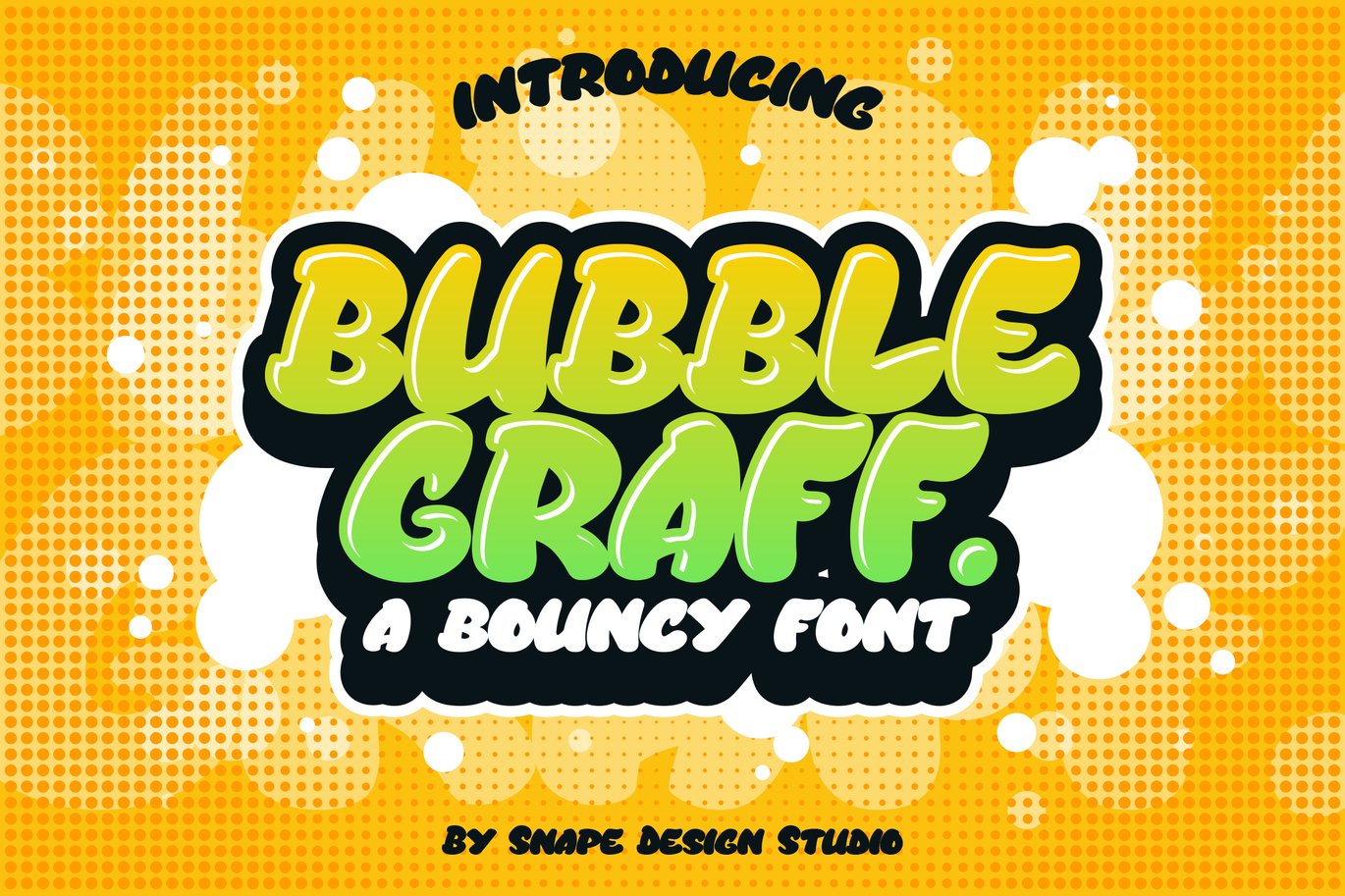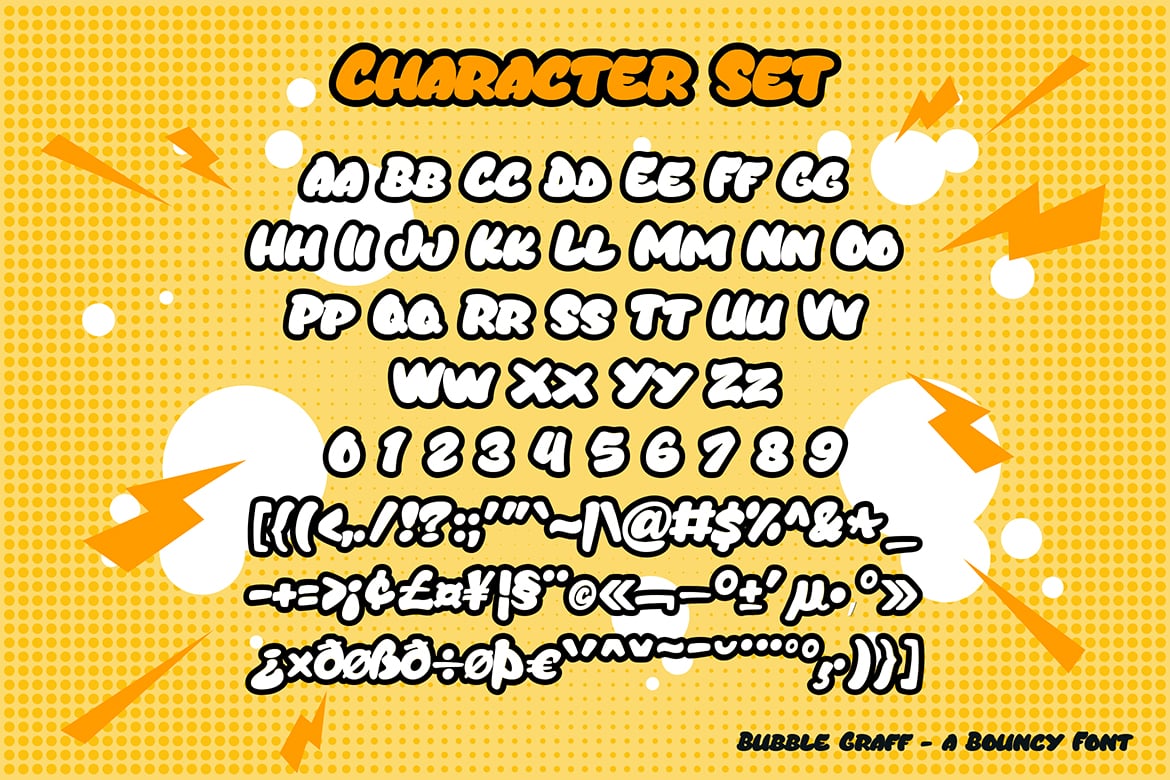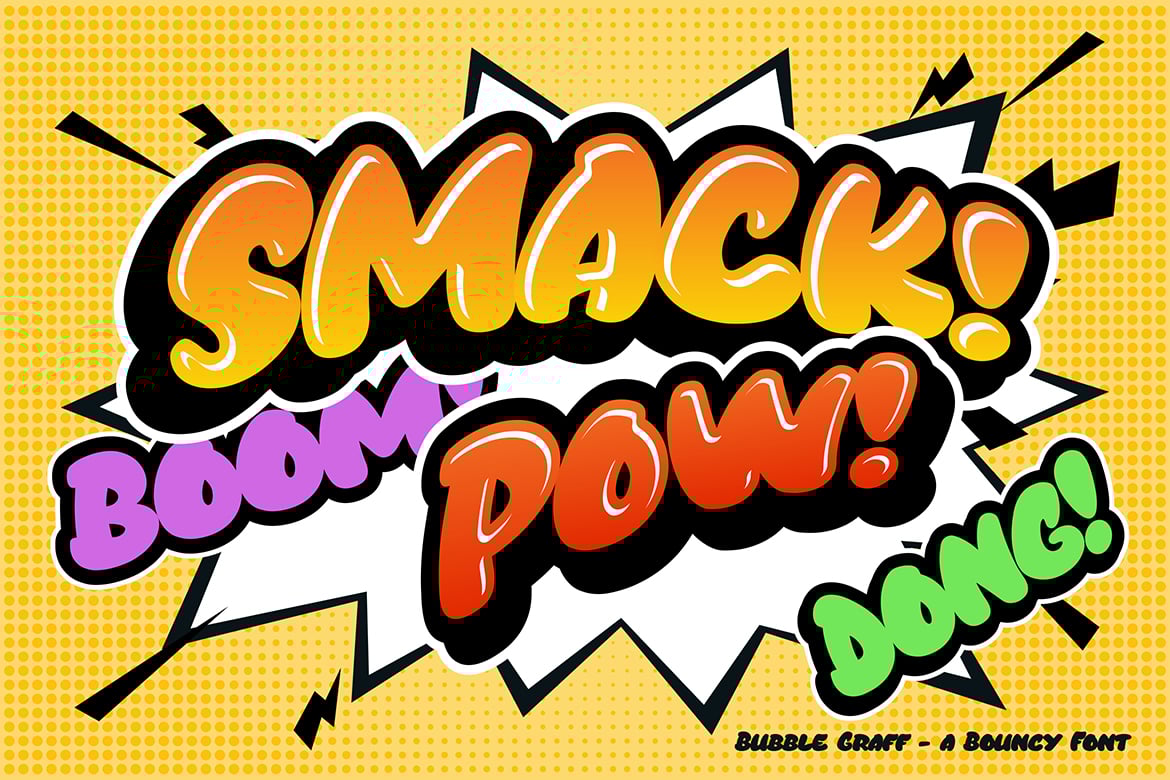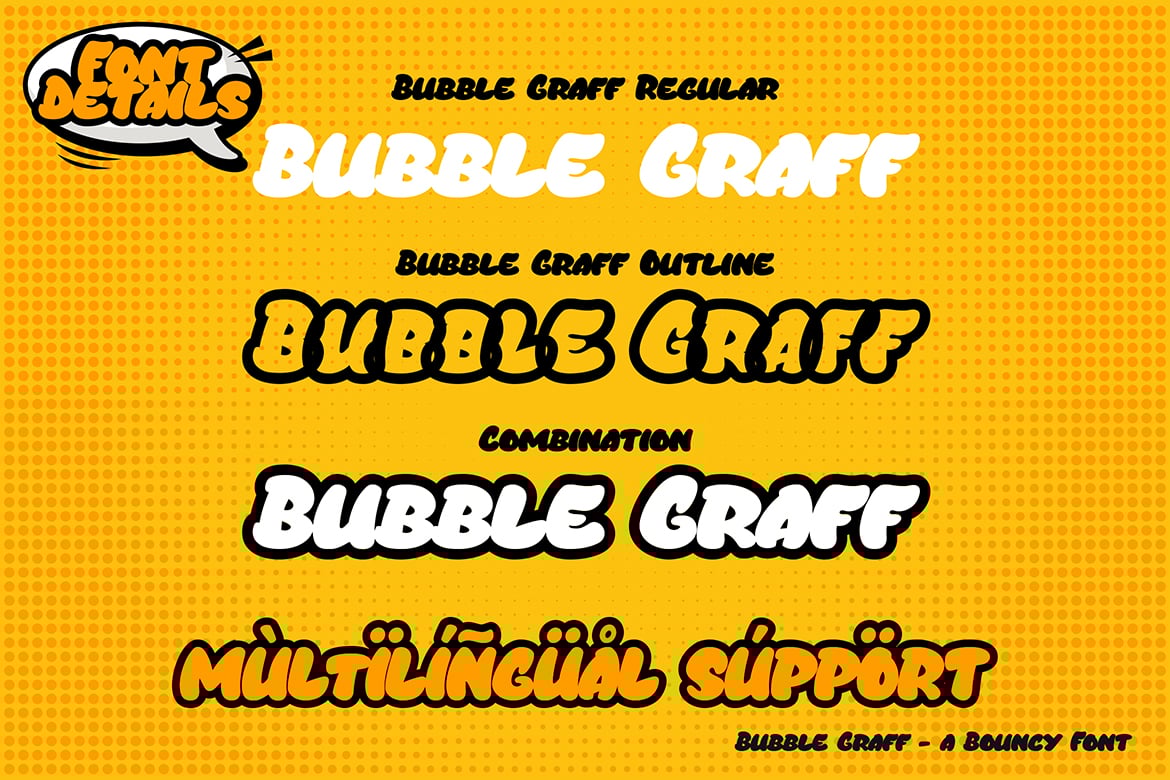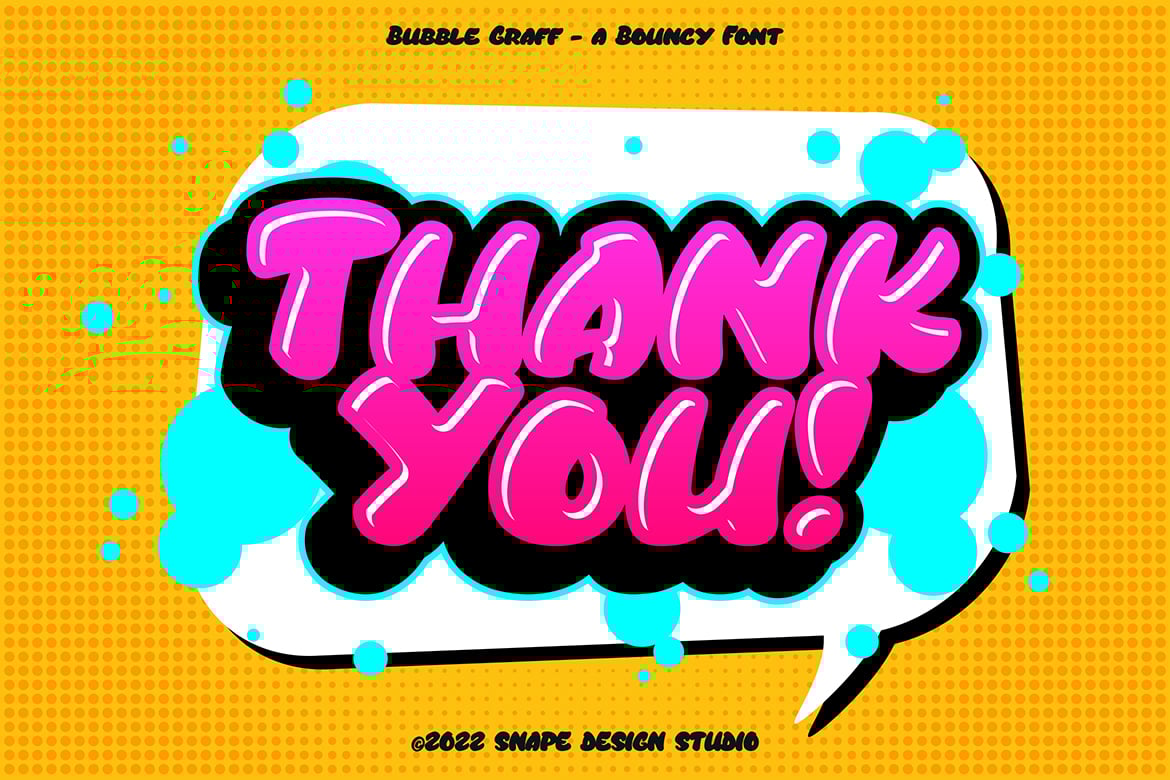
Bubble Graff – Bouncy Font
Bubble Graff is a cool, bubbly and thick lettered display font. It embodies playfulness and authenticity and is the perfect choice for any children activity or school project, especially when combined with bright colors. Suitable for movie, documenter, film, logo, poster, game, book cover, headlines, title and many more projects.